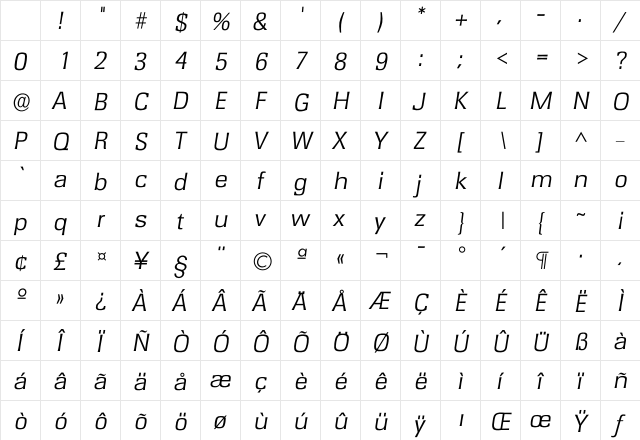
Irochester is a composed and adaptable typeface that performs quietly and consistently across a wide range of design contexts. Its slender proportions lend an understated elegance to any composition.